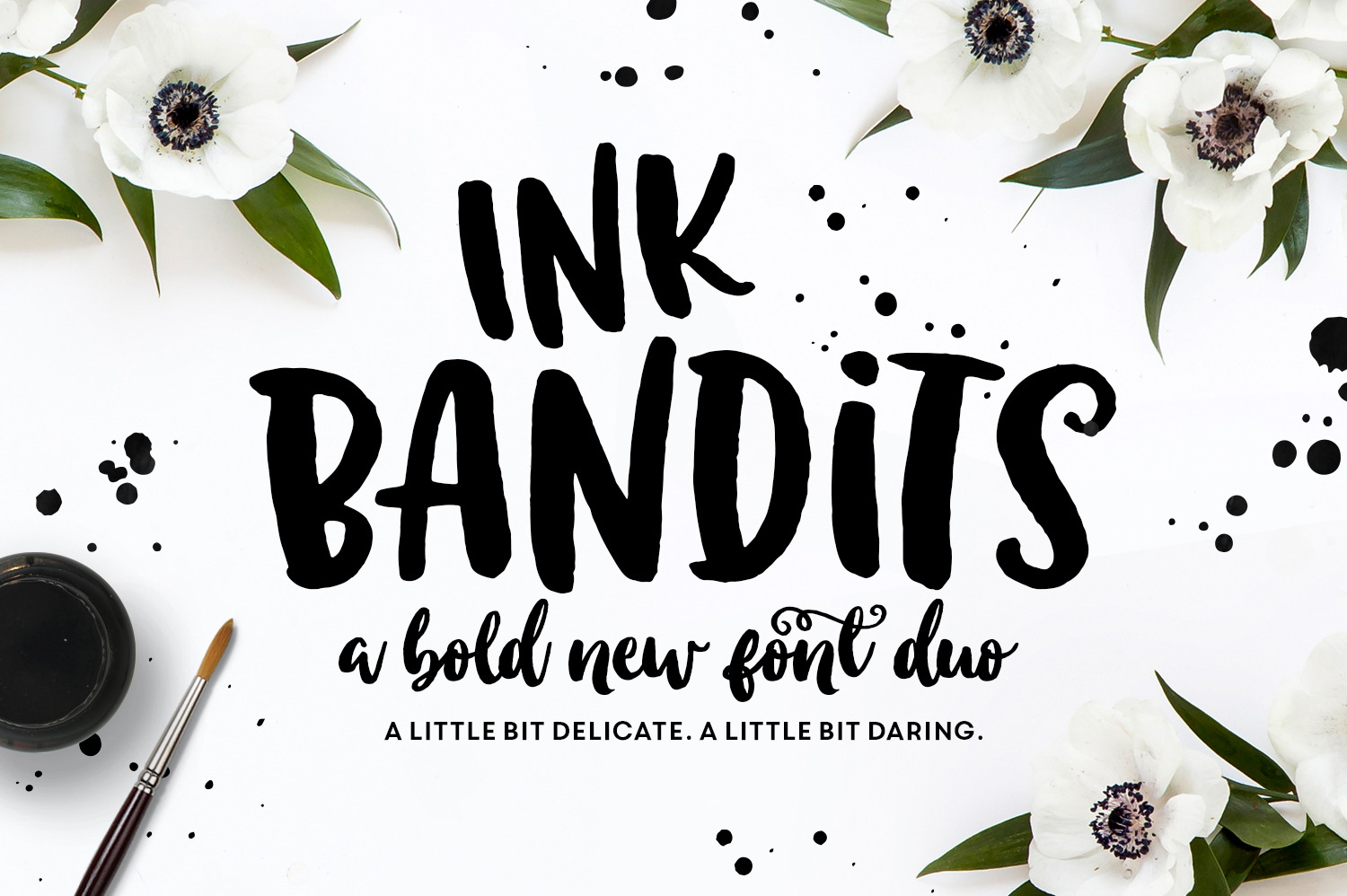
Ink Bandits Font Duo
Meet Ink Bandits! A bold and cheeky typeface duo, perfect for hand lettering projects, greeting cards, typography work, unique invitations, stamps, branding and MORE!
Ink Bandits comes in a in both a fun, sans serif style, as well as an organic, irregular script font. Plus, 85 catchwords and ornaments to add some extra hand-lettered flair to your work! ;)